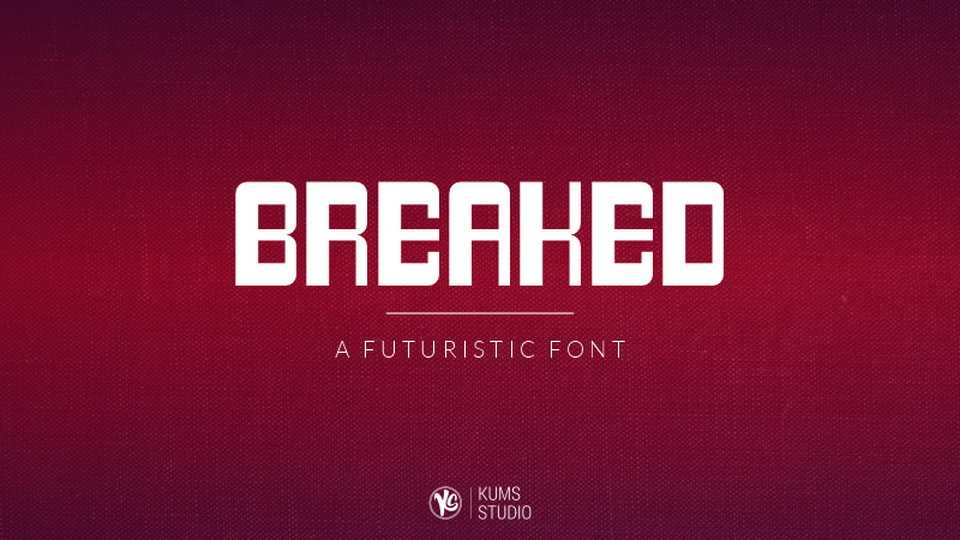
Download Breaked font, a bold retro futuristic display typeface. Breaked is perfect for branding projects, logos, headlines and posters, any project that requires an impression of confidence.